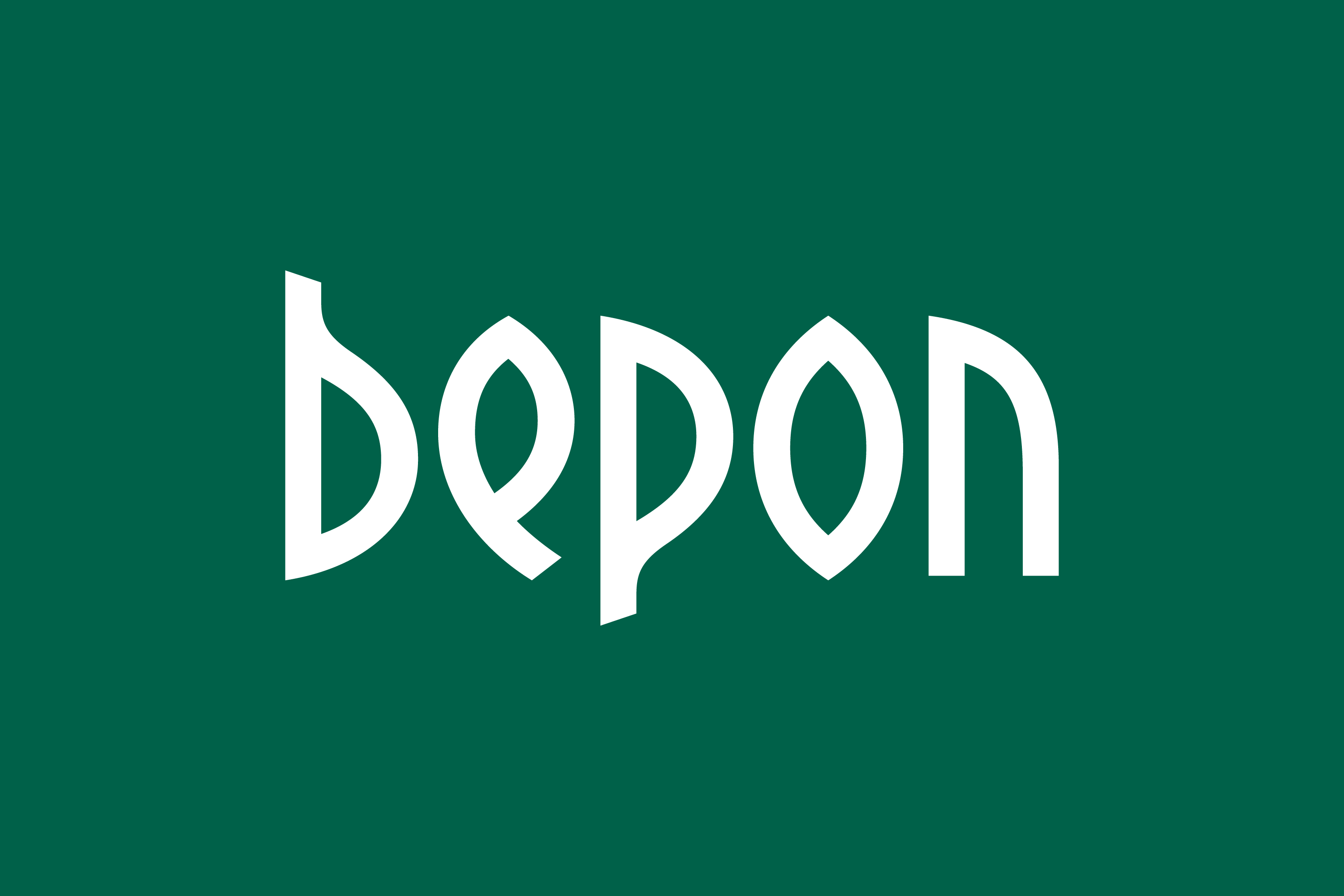
Bepon
Bepon is a traditional Slovak manufacturer and market leader in hosiery and underwear products. The new Bepon logo is a modern reinterpretation of the original logo from the 1990s, the characteristic design principles of which were also used in the new redesign after consultation with the client.
Uppercase letters have been replaced by lowercase, as these allow for a more natural and harmonious use of these principles. In addition, the characters b and p have been softened by the smooth connection of the counters to the vertical stems, referring to the elegant curves of the human body.